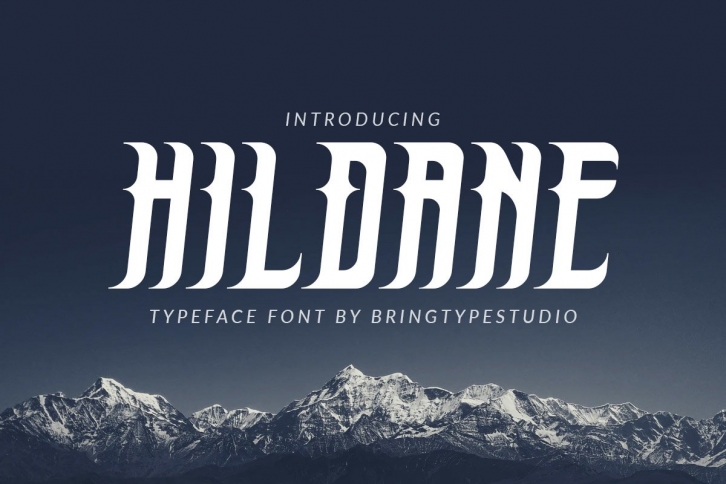
HILDANE is a gorgeous font that was realeased on August 2, 2020. The font can be used in many style contexts and design environments. Perfect for invitations, magazines, websites, logos, and more! It was designed by bringtypestudio and the file size is 20.30 MB. Thanks for checking out this font!